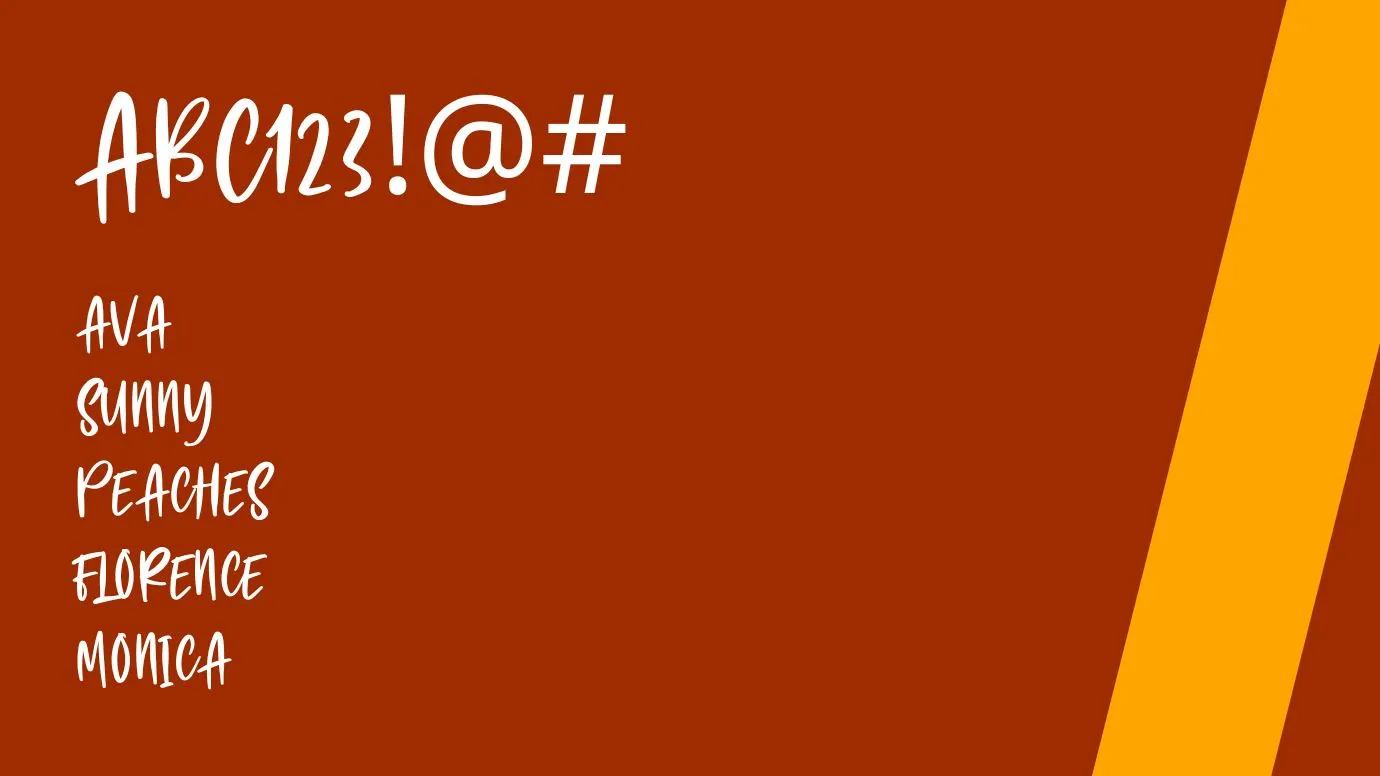
Another interesting family, Cloudy Nights Font is a cute and casual handwritten font. The typeface has a very friendly feeling to it. Whether you are looking for a typeface for Instagram or any other project, Cloudy Nights typeface will turn any creative idea into reality.
Moreover, it has a significant contrast between thin and thick strokes making the typeface elegant while matching with other typefaces for example happy face font. The typeface is somewhat multifaceted meaning that it has different features and aspects for your personal as well as commercial needs.
When it comes to pairing options, it can be paired with the rambler font as both have an impactful design and can create unique text effects. The typeface with a friendly vibe can be used in a variety of options like invitation cards, banners, logos, posters, and other printed material.
Cloudy Nights Font Family Includes
The Cloudy Nights Font is a cute and casual handwritten typeface. It comes in an elegant single regular style. It consists of a complete set of characters, punctuation, symbols, and support of modern languages.
What kind of typeface is the Cloudy Nights?
Cloudy Nights is a cute and casual handwritten texture. The typeface has an incredibly friendly feeling to it.
Where can I use the Cloudy Nights typeface?
The typeface with a friendly vibe can be used in a variety of options like invitation cards, banners, logos, posters, and other printed material.